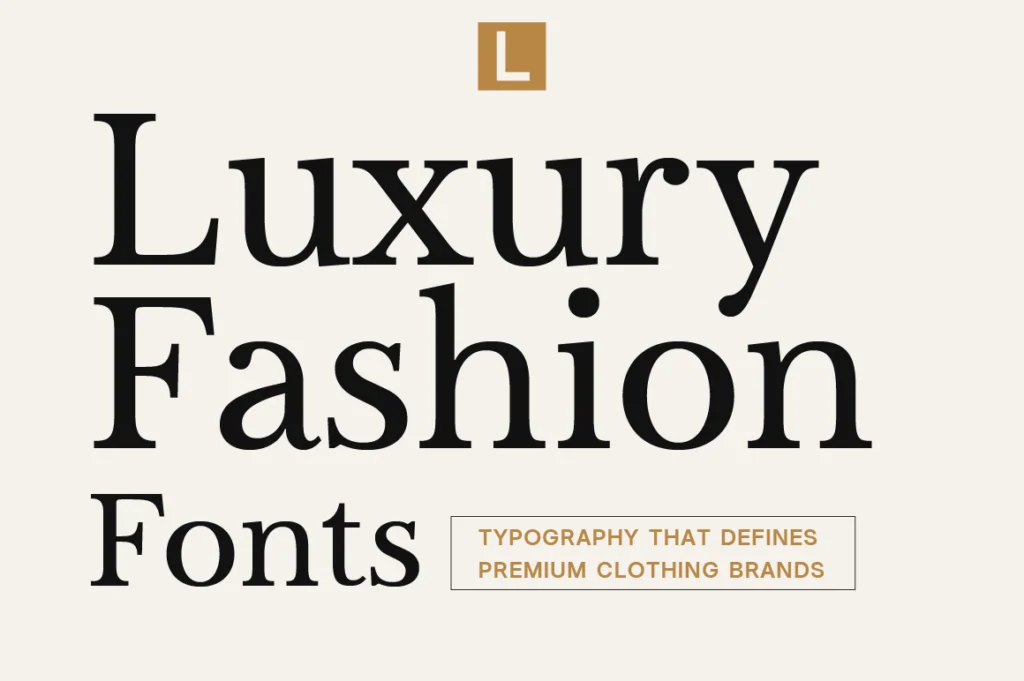
Luxury Fashion Fonts: How Typography Shapes Premium Clothing Brands
Typography That Defines Premium Clothing Brands
Luxury fashion is built on details. While photography, materials, and craftsmanship often receive the most attention, typography quietly shapes how customers perceive a brand before they ever touch a product. The right typeface communicates elegance, confidence, and exclusivity in a matter of seconds.
From boutique fashion labels to international luxury houses, typography is one of the strongest visual assets in branding. A carefully selected font can elevate a clothing label from looking ordinary to feeling premium and timeless.
Whether you’re launching a new fashion brand or refreshing an existing identity, choosing the right luxury fashion font is an investment that influences every customer interaction.
Why Typography Matters in Fashion Branding
Fashion is emotional. Customers don’t simply buy clothing—they buy identity, aspiration, and lifestyle.
Typography becomes the visual voice of that identity.
Elegant serif fonts often communicate heritage, sophistication, and craftsmanship. Modern editorial-inspired fonts suggest confidence and contemporary luxury, while clean sans serif fonts create a refined minimalist aesthetic.
The typography chosen for a logo, lookbook, website, packaging, and social media should all work together to create a consistent luxury experience.
Characteristics of Luxury Fashion Fonts
Premium fashion brands usually avoid decorative or overly playful typefaces. Instead, they rely on fonts that balance elegance with readability.
Common characteristics include:
• High contrast letterforms
• Refined serif details
• Balanced spacing
• Elegant proportions
• Timeless appearance
• Strong editorial influence
These qualities help a brand appear more established and trustworthy while maintaining a sophisticated personality.
Serif Fonts and Premium Fashion
Serif fonts remain one of the most popular choices for luxury clothing brands because they naturally convey heritage and refinement.
Modern serif typefaces combine classical inspiration with contemporary proportions, making them ideal for:
• Fashion logos
• Clothing labels
• Editorial magazines
• Product packaging
• Campaign headlines
• Website hero sections
A premium serif creates an immediate impression of quality without overwhelming the design.
Editorial Typography Creates Luxury
Many successful fashion brands borrow inspiration from editorial design.
Magazine-inspired typography features generous spacing, elegant hierarchy, and dramatic headlines that feel cinematic rather than commercial.
This editorial approach works particularly well for:
• Seasonal collections
• Fashion campaigns
• Online lookbooks
• Designer portfolios
• Brand storytelling
It allows typography to become part of the visual experience instead of simply delivering information.
Consistency Across Every Brand Touchpoint
Luxury branding depends on consistency.
The same typography should appear throughout every customer interaction, including:
• Logo design
• Website
• Shopping bags
• Clothing tags
• Packaging
• Social media
• Email campaigns
• Printed catalogs
When typography remains consistent, customers begin to recognize the brand instantly, reinforcing trust and memorability.
Choosing the Right Luxury Fashion Font
Before selecting a font, consider the personality of your fashion brand.
Ask yourself:
• Is the brand modern or heritage-inspired?
• Does it target luxury streetwear or timeless elegance?
• Will the typography remain relevant in five or ten years?
• Can it perform equally well in digital and print applications?
Avoid choosing fonts based only on current trends. Timeless typography provides greater long-term value and creates a stronger foundation for brand growth.
Luxury Fashion Typography Starts With the Right Typeface
Typography is one of the most powerful tools in luxury branding. Long before customers evaluate fabric quality or craftsmanship, they begin forming opinions through visual presentation.
A thoughtfully selected luxury fashion font communicates confidence, elegance, and professionalism across every brand touchpoint. Whether you’re designing a boutique clothing label, premium fashion house, or editorial campaign, investing in high-quality typography helps create a lasting impression that reflects the value of your products.
Choosing timeless fonts today means building a stronger and more recognizable fashion brand for years to come.